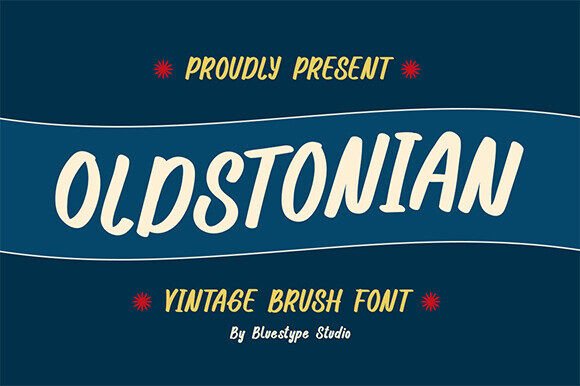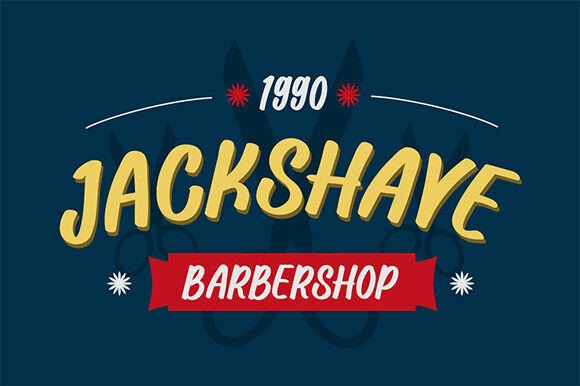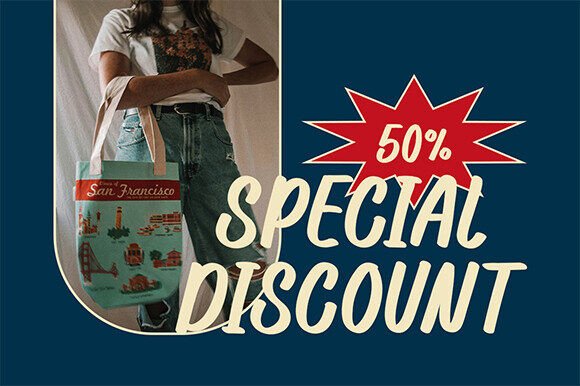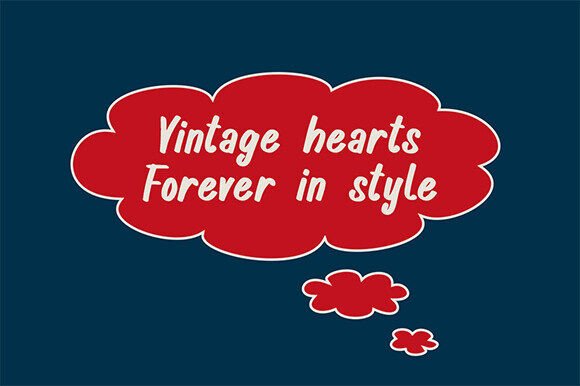
Oldstonian Font: A Bold Vintage Brush Font for Logo Design
About the Oldstonian Font
Step up your design game with Oldstonian Font, a font that exudes confidence and style. Oldstonian is a bold and charismatic typeface that blends the raw, hand-painted texture of a brush font with the clean structure of a sans serif. Designed with a nostalgic vintage touch, Oldstonian brings character and authenticity to any design it graces.
Oldstonian excels in headlines, short-form text on posters or packaging, and branding applications where a vintage-inspired, yet modern feel is desired. Its bold character makes it unsuitable for body copy or lengthy paragraphs; readability suffers at smaller sizes. The inherent texture works best at larger scales.
For optimal pairing, consider a clean sans-serif like Open Sans or Lato for body text to provide contrast and legibility. Alternatively, a delicate script font such as Great Vibes can add a touch of elegance and sophistication, particularly for logos or sub-headings. Avoid pairing with other highly textured or ornate fonts to prevent visual clutter.
Oldstonian projects a bold and confident personality, blending vintage charm with contemporary energy. It is ideal for brands aiming for a nostalgic yet fresh image, particularly those in the fashion, food, or craft industries.